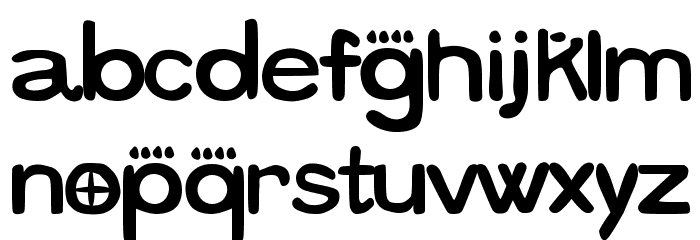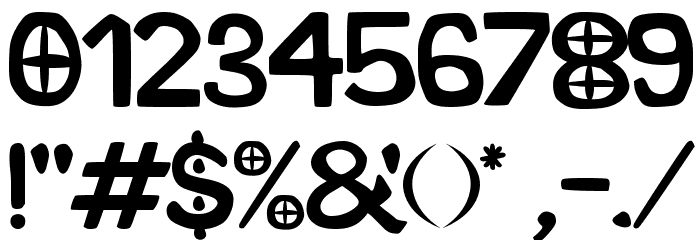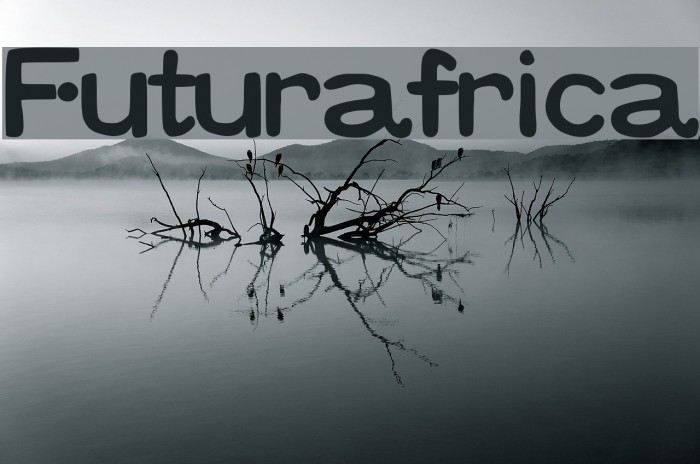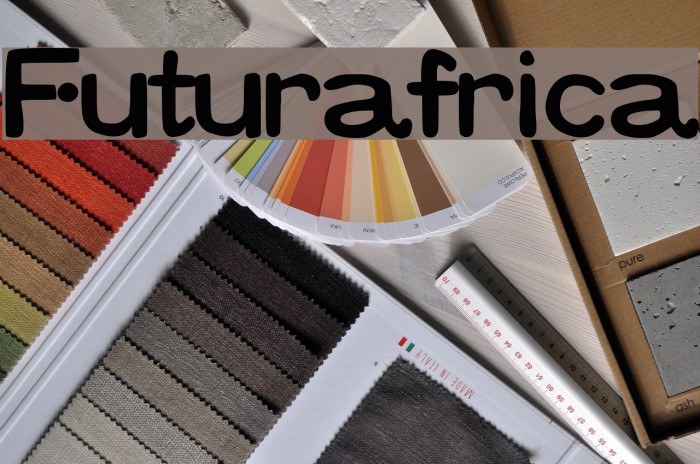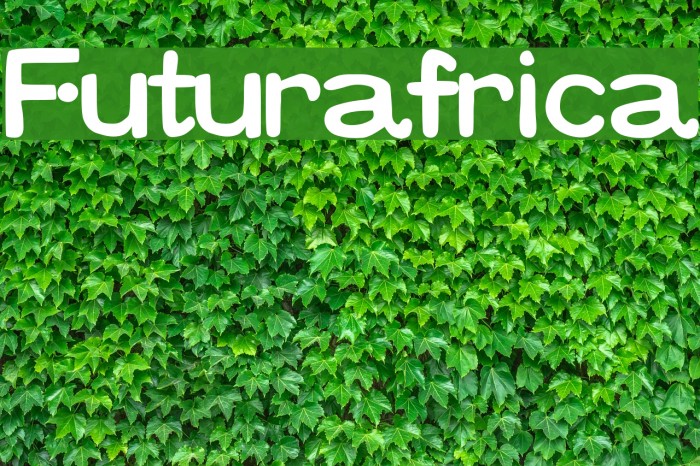
Futurafrica Font
This font features a bold and playful design with a unique blend of geometric shapes and rounded edges. The uppercase letters are characterized by their solid, block-like appearance, while the lowercase letters maintain a consistent roundness that adds a friendly touch. The inclusion of dots and lines within certain characters, such as 'O' and 'P', adds an intriguing decorative element. Numbers and special characters follow the same bold and rounded style, ensuring visual consistency. The font's overall appearance is modern and slightly futuristic, making it stand out in any design.
A bold, playful font with geometric shapes and rounded edges, offering a modern and decorative style.
- Proposed Projects: Ideal for branding, posters, and creative projects that require a modern and eye-catching typeface.
- Overall Style: Modern, Decorative